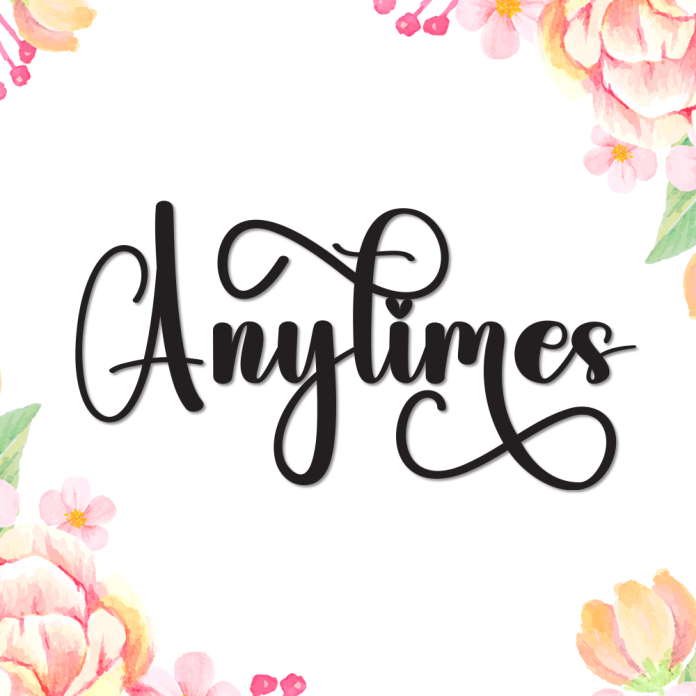
Anytimes is a delightful handwriting font that captures the relaxed flow of natural pen strokes. With its clean curves and subtle bounce, it feels personal and effortless — perfect for notes, journaling, quotes, branding, and invitations.
Whether you're writing a heartfelt message or designing a cozy brand, Anytimes adds an authentic and approachable touch.
Casual and friendly handwriting style
Smooth curves with natural rhythm
Great for quotes, greeting cards, lifestyle branding, and digital planners
Say it sincerely and stylishly with Anytimes — a font that feels just like your favorite pen on paper.